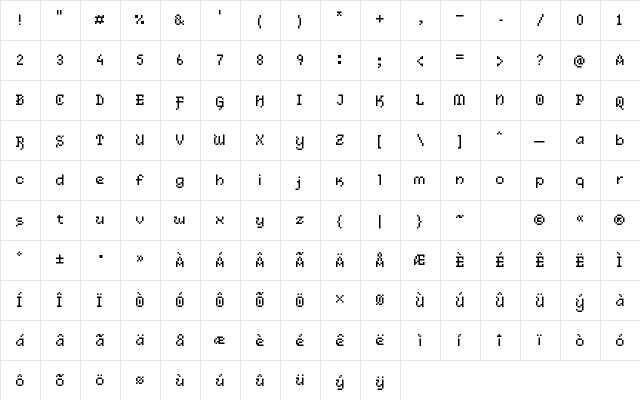
Legendaria Medium Font Preview
Legendaria Medium
Design Context for Legendaria Typeface
Legendaria takes a measured approach to typography — its balanced proportions and neutral character make it a reliable workhorse for both digital and print work.
Pro Tip: Pair Legendaria with a font of contrasting weight or personality to build a more expressive typographic hierarchy.